Albert-Jan Pool drew FF DIN between 1995 and 2009 for FontFont, basing it on the lettering models in the German industrial standard DIN 1451 — the same spec behind German road signage and technical drawings for most of the 20th century. That engineered, methodical heritage is exactly why FF DIN shows up constantly in wayfinding, automotive, and technical branding: it looks like an official standard because, in a sense, it is one. Licensing the original today runs over $100 for a single style, with the complete 28-font family costing well over a thousand dollars. These five Google Fonts borrow the same technical, standardized feel for free. If you’ve been searching for free alternatives to din font, this list is built exactly for that.
Titillium Web
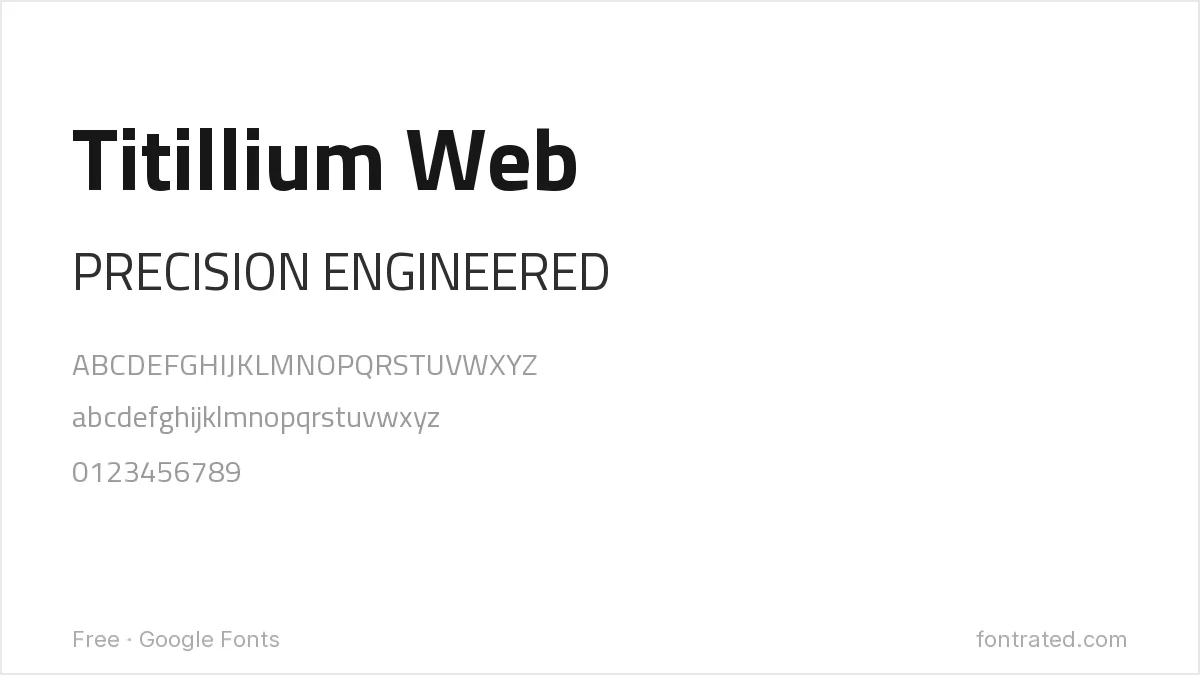
Developed through a university type-design course with an explicit engineering, standards-driven brief, Titillium Web shares DIN’s technical DNA more directly than any other free font on this list.
Barlow Condensed
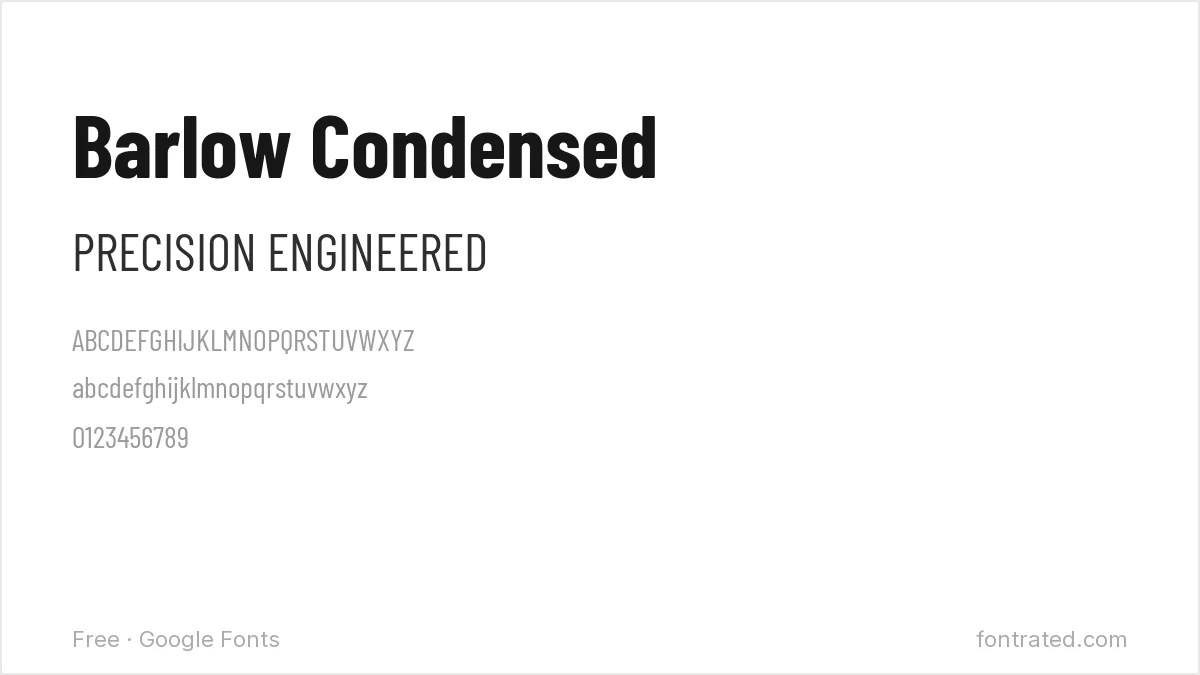
Drawn with the same California-signage lineage as Barlow’s regular width, the condensed cut buys back the horizontal space DIN-style signage fonts are built for.
Fjalla One
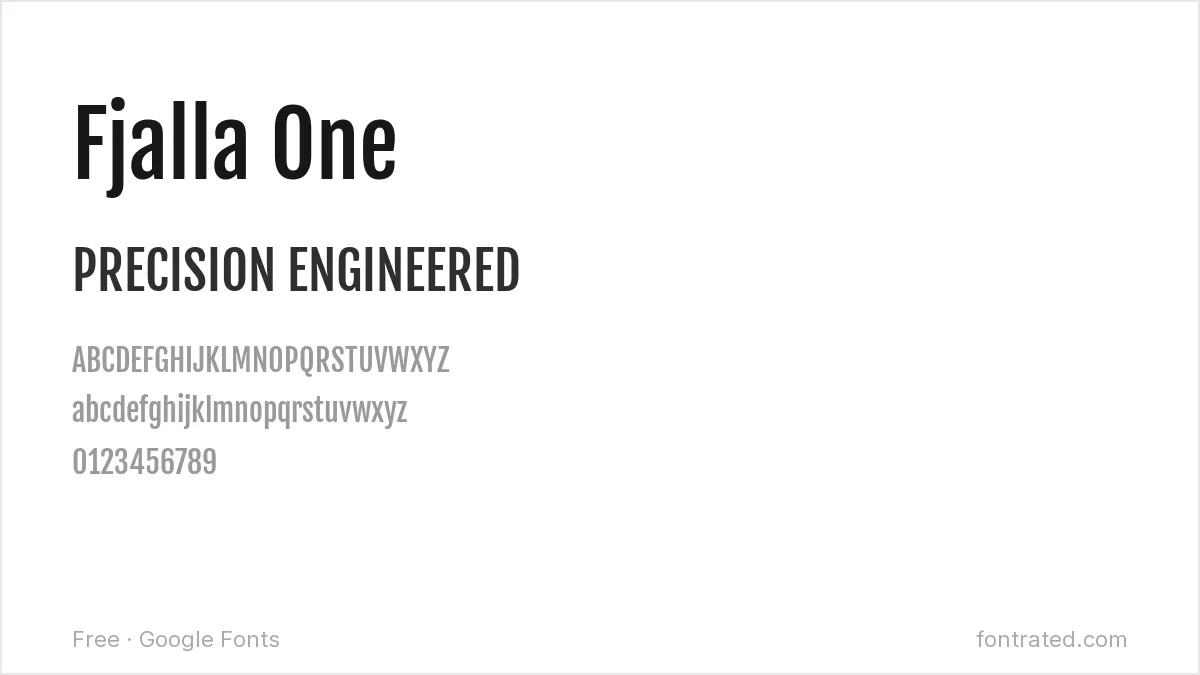
A condensed sans with sturdy, methodical proportions, Fjalla One reads as functional and unfussy — much of DIN’s own appeal.
Oswald
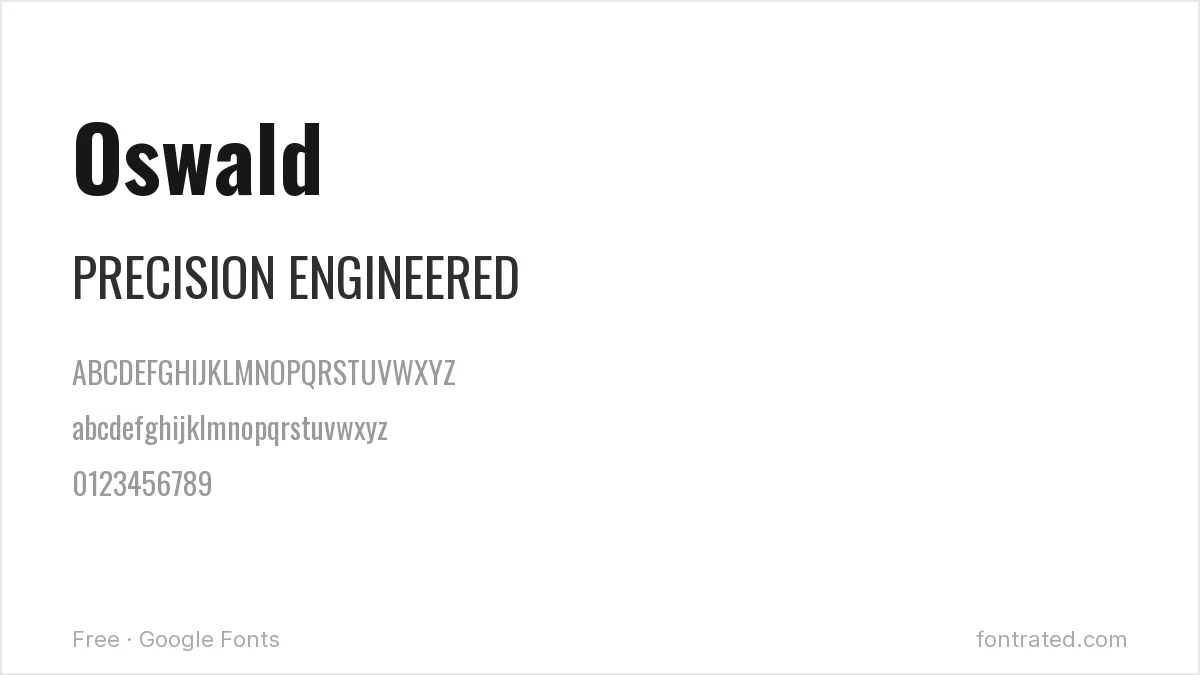
Reworked from classic gothic sans models with an industrial edge, Oswald carries some of the same confident, engineered feel DIN built its reputation on.
Archivo Narrow
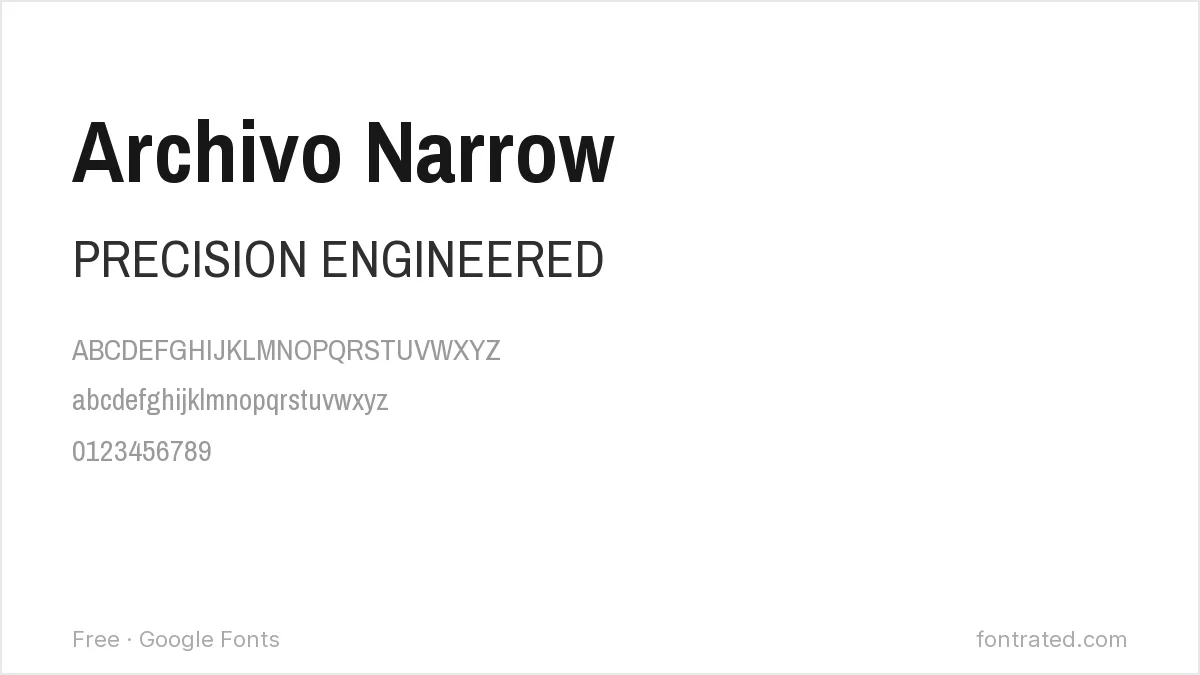
A narrow-width grotesque built for tight spaces, Archivo Narrow suits the kind of dense technical labeling DIN was originally engineered to handle.
Quick Comparison
| Font | Style | Best For |
|---|---|---|
| Titillium Web | Engineered technical sans | Closest free match |
| Barlow Condensed | Condensed low-contrast grotesque | Signage and wayfinding text |
| Fjalla One | Condensed sans | Clean, no-nonsense labels |
| Oswald | Condensed sans | Confident technical headlines |
| Archivo Narrow | Narrow grotesque | Dense technical labeling |
Frequently Asked Questions
Why does DIN show up so often in automotive and technical branding?
Its roots in an actual German industrial standard (DIN 1451) give it a built-in association with precision and engineering — brands in automotive, tech, and industrial spaces reach for it specifically to borrow that credibility.
What’s the biggest visual difference between FF DIN and Titillium Web?
Titillium Web is slightly more geometric and a touch less condensed than FF DIN’s tightly engineered proportions, but both share the same no-nonsense, standards-driven character.